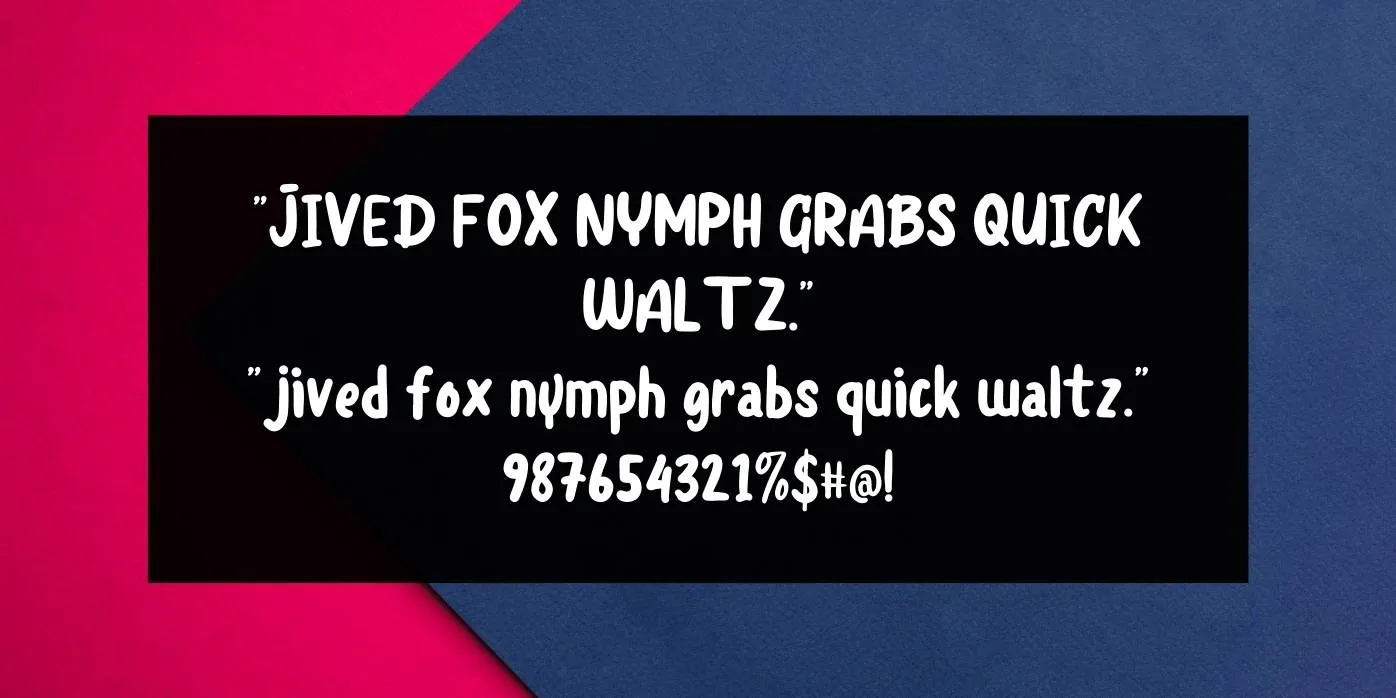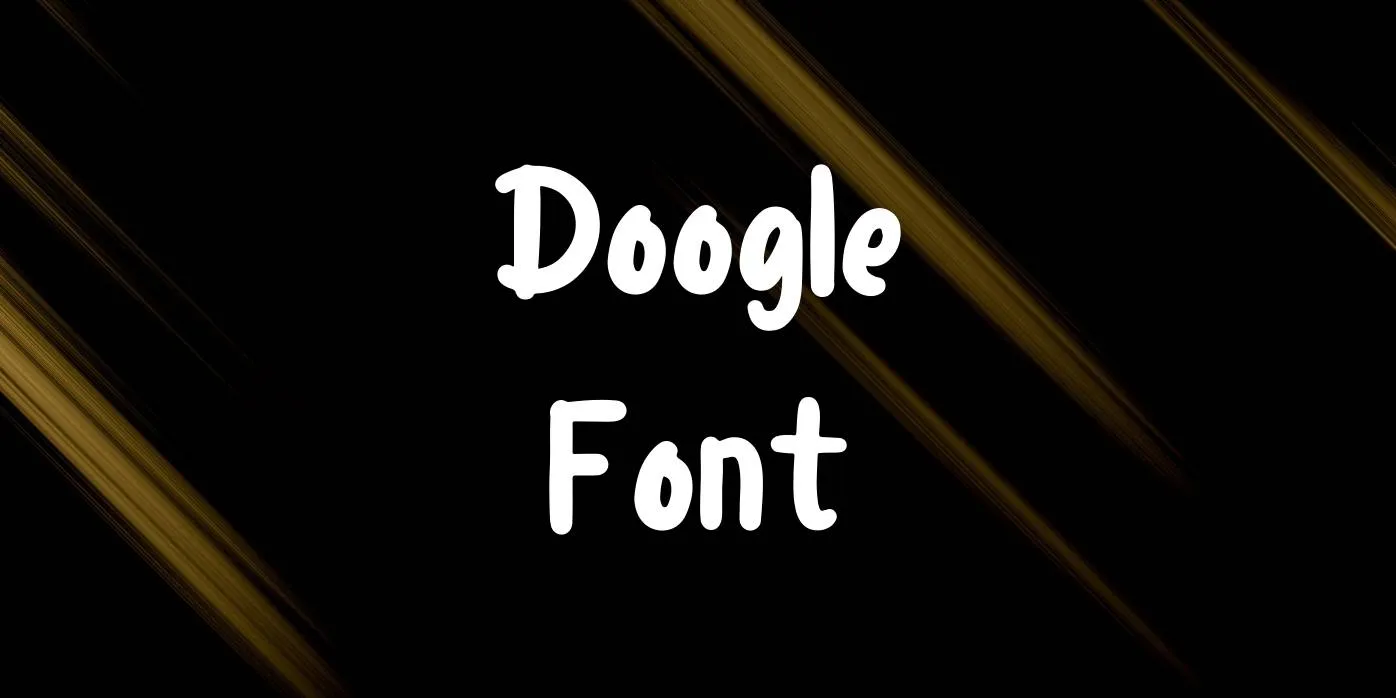
Doogle Font
The Doogle Font is a famous texture all around the world and was designed by Ardyana types. This company has specialization in making fonts. Doogle Font style usually belongs to a handwritten Family. For some people whose handwriting is very messy and they do not pay full attention while writing something this font can be used for them. Its weight is normal and its width is medium (normal).
It also provides the facility of online generator tools which make normal text looks fashionable and decorative. This texture has different elements and also has small letters, capital letters, punctuation, symbols, numbers, etc.